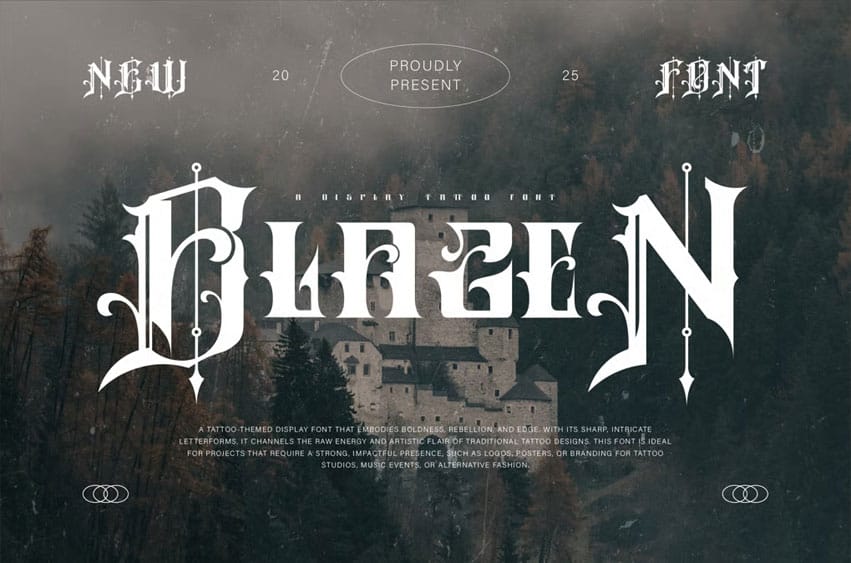
Blazen Font
Blazen Font is a tattoo-themed display font designed to evoke bold, rebellious energy with intricate details and strong character. Its sharp edges and striking letterforms capture the essence of traditional tattoo artistry while adding a modern touch.
Perfect for designs that need a fierce, expressive vibe, Blazen works beautifully for tattoo studios, edgy branding, and projects aiming to make a powerful statement. The font’s unique style adds a sense of rebellious elegance, making it ideal for showcasing individuality and creativity.